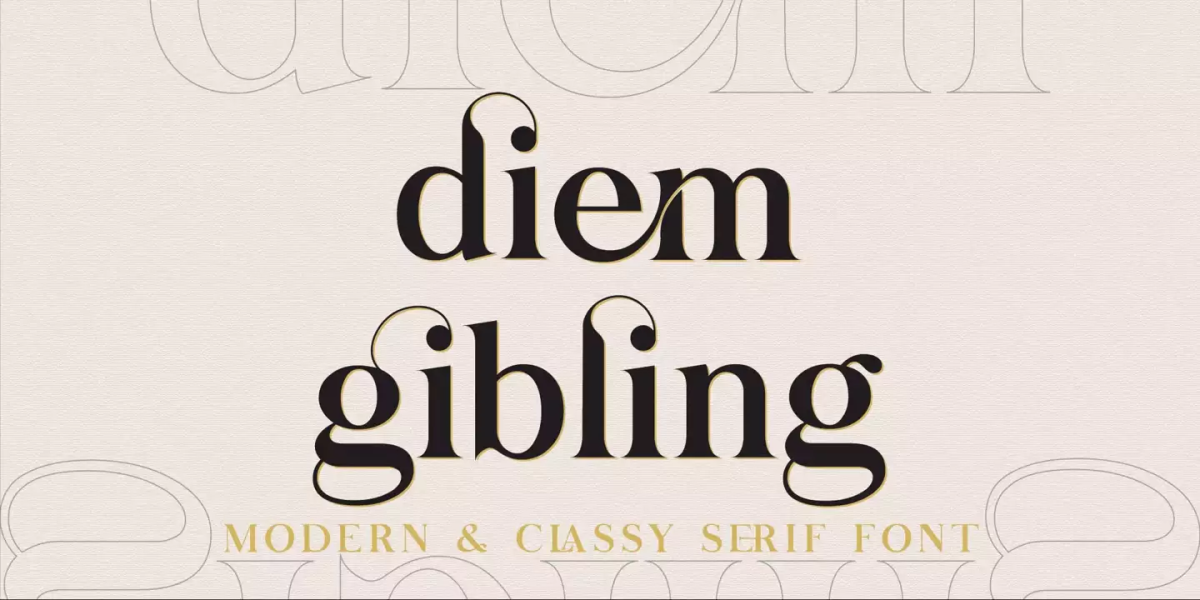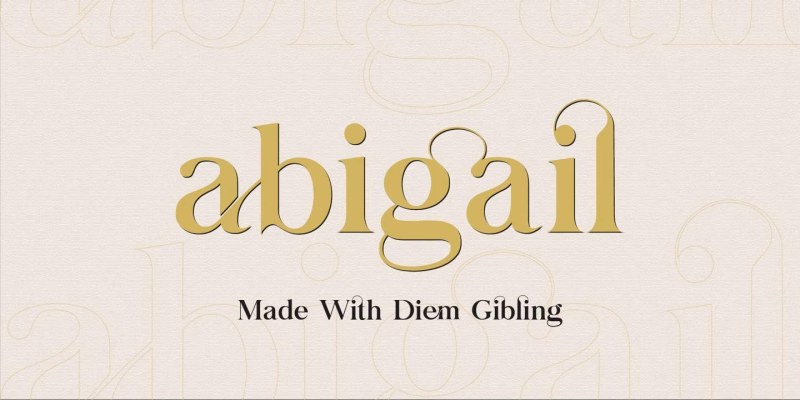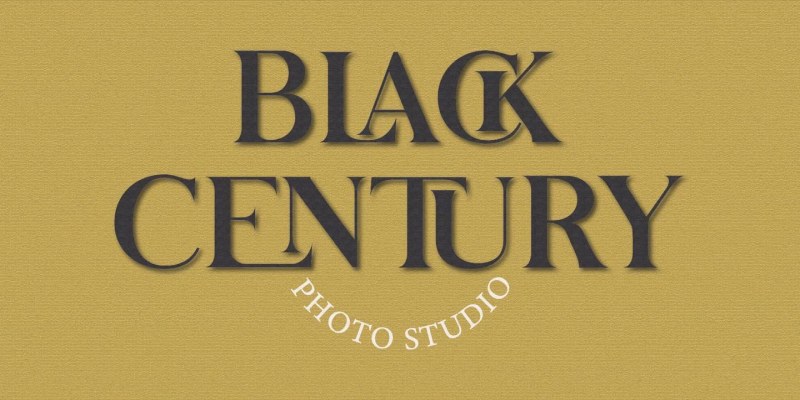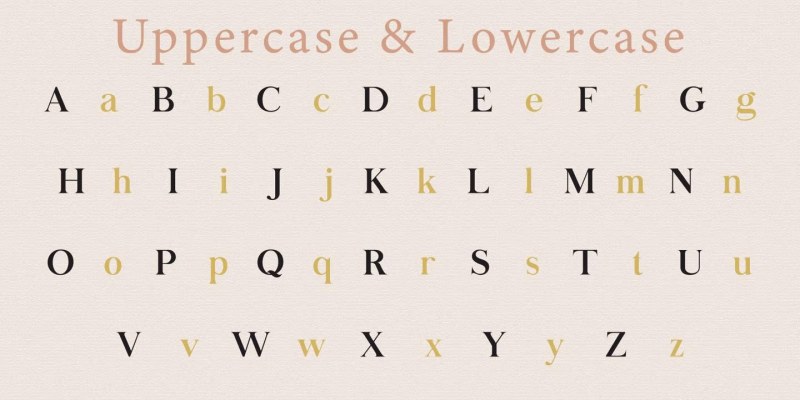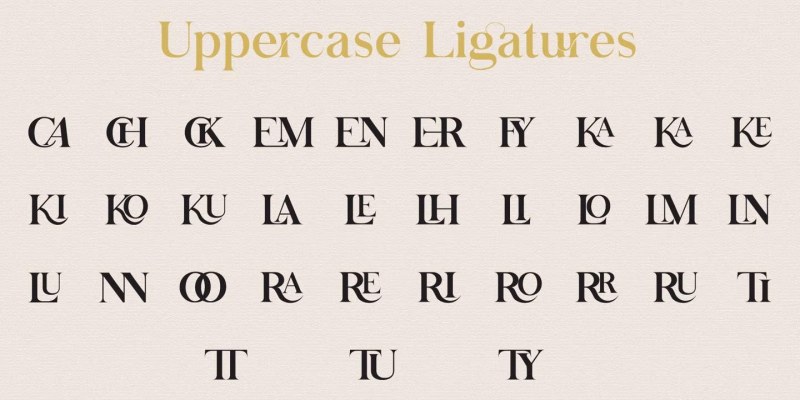
Diem Gibling Font
Introducing the new Diem Gibling Ligature Serif!!! Diem Gibling is an elegant and classy serif typeface – This font is both modern and nostalgic and works great for logos, magazine, social media. Already matched up and ready to be used together for your next design! For those of you who are needing a touch of elegant, stylish, classy, chic and modernity for your designs, this font was created for you!
Diem Gibling Font is a Serif Fonts font that brings a professional and versatile look to your projects. Introducing the new Diem Gibling Ligature Serif!.